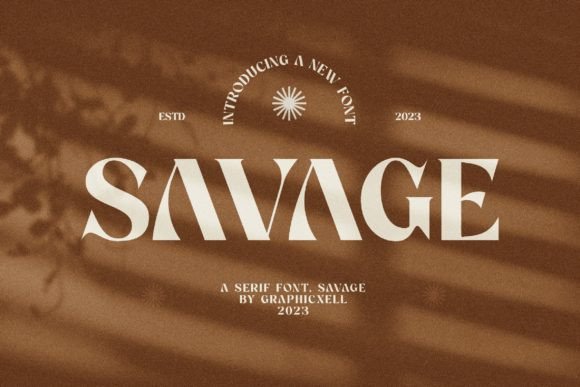
Introducing Savage Font - The Epitome of Elegance and Distinction
In the world of typography, there exists a font that transcends the ordinary, a font that captivates and commands attention with its timeless beauty and inherent charm. Allow us to introduce you to Savage Font, a masterpiece crafted by Graphicxell, designed to elevate your branding and logo designs to new heights of sophistication.
Experience the Allure of Savage Font
Savage Font belongs to the distinguished family of serif fonts, characterized by its delicate yet striking strokes that add a touch of elegance to any design. Its carefully crafted curves and impeccable balance create a visual symphony that dances across your screens, leaving an unforgettable impression on your audience.
Unleash Your Creativity with Savage Font
Savage Font is a versatile and adaptable font that effortlessly adapts to a wide range of design projects, making it the perfect choice for the discerning creative professional. Whether you're crafting a timeless logo for your fashion label, designing an enchanting wedding invitation, or creating eye-catching social media posts, Savage Font seamlessly blends with your vision, adding a touch of sophistication and allure.
Discover the Limitless Possibilities of Savage Font
Step into a world of boundless creativity with Savage Font. Its versatility extends far beyond fashion and logo design, making it an indispensable tool for any project that demands a touch of class and elegance. Unleash your imagination and explore the endless possibilities:
- Create product packaging that exudes luxury and exclusivity.
- Design product labels that command attention on shelves and online.
- Elevate your photography with watermarks that add a touch of artistry.
- Craft invitations and stationery that leave a lasting impression.
- Embark on any creative endeavor, knowing that Savage Font will elevate your vision and surpass expectations.
Embrace the Power of Savage Font Today